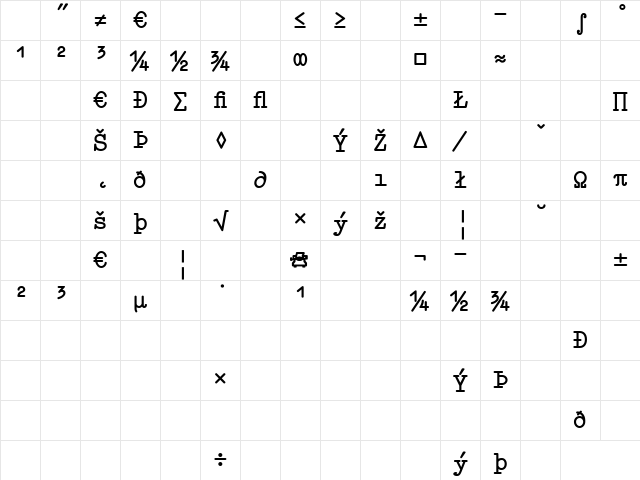
Elementa Expert is a composed and adaptable typeface that performs quietly and consistently across a wide range of design contexts. Its bold stroke weight gives it real presence on the page.
Who designed the Elementa Expert Bold font?
This font was published by Mindaugas Strockis, . Published by FontShop International. FontFont Release. Check the technical specs section for copyright and designer details.